Best Font For Marketing And How To Choose
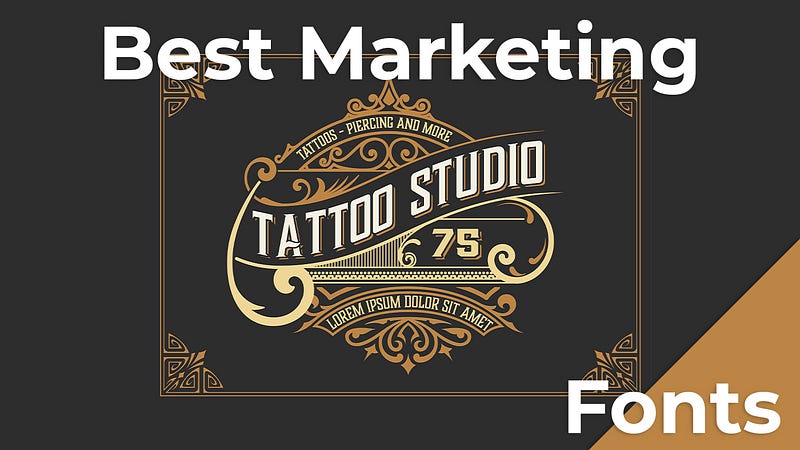
There is no one “best” font for marketing, as the best font for a given situation will vary depending on the specific message that you’re trying to communicate. Some fonts are more commonly used in marketing materials than others, and certain fonts can be more effective at conveying certain messages. Here are some general rules of thumb that can help you choose the best font for your marketing materials.
When it comes to fonts, readability is key. You want your audience to be able to read your text easily, without having to strain their eyes. So, avoid fonts that are too fancy or ornate. They may look pretty, but they can be difficult to read.
A good rule of thumb is to stick to simple fonts like Arial, Helvetica, or Times New Roman. These fonts are easy to read and they come pre-installed on most computers, so you don’t have to worry about your audience not being able to view them.
If you are looking for a more unique font, try something that is still easy to read, like Verdana or Georgia. These fonts have a modern feel to them and they are still easy to read.
When it comes to marketing, it is important to consider your audience. If you are targeting a younger audience, you may want to use a more modern font, like the ones mentioned above. If you are targeting an older audience, you may want to stick to more traditional fonts.
Ultimately, the best font for marketing is the one that is the easiest for your audience to read. So, take the time to test out different fonts and see which one works best for your specific needs.
How To Choose The Best Font For Your Marketing Materials
There is no one best font for marketing, as the choice of typeface depends on the specific goals and target audience of your campaign. However, there are a few key things to keep in mind when selecting a font for your marketing materials:
1. Make sure the font is legible.
Your target audience should be able to read your marketing materials without any difficulty, so make sure to choose a font that is easy to read. Sans-serif fonts are generally considered to be the most legible, while serif fonts are less legible in small doses but can be more effective when used in large blocks of text.
2. Consider the tone of your campaign.
The font you choose should reflect the tone of your marketing campaign. For example, a playful, fun campaign might benefit from a more whimsical font, while a more professional or serious campaign might be better suited to a more traditional font.
3. Match the font to your branding.
Your branding should be reflected in your marketing materials, so make sure to choose a font that is consistent with your company’s branding. This will help to create a unified look and feel for your marketing materials.
4. Keep it simple.
In general, it’s best to stick to a few simple fonts for your marketing materials. Too many different fonts can be confusing and can make your materials look cluttered.
With these tips in mind, here are a few of our favorite fonts for marketing:
1. Helvetica: A classic sans-serif font that is both legible and versatile.
2. Georgia: A serif font that is both easy to read and has a traditional look and feel.
3. Bodoni: A stylish serif font that is perfect for high-end brands.
4. Arial: A simple, legible sans-serif font that is perfect for everyday use.
5. Comic Sans: A playful font that is perfect for lighthearted and fun marketing campaigns.
What Are The Most Effective Fonts For Marketing Emails
The best font for marketing emails will vary depending on the specific goals and target audience of the email campaign. However, some general tips on selecting fonts for marketing emails can be helpful for designers and email marketers alike.
When selecting a font for marketing emails, it is important to consider both the readability of the font and its ability to convey the tone and message of the campaign. While some fonts may be more legible, others may be more visually appealing or convey a certain feeling or mood.
Some of the most popular fonts for marketing emails include Arial, Verdana, Tahoma, Trebuchet MS, and Georgia. These fonts are all relatively easy to read and are widely available on both Windows and Mac computers. Additionally, they are all sans-serif fonts, which are often considered to be more legible than serif fonts.
If you are looking for a more creative or visually appealing font, there are a number of options available. Some popular fonts for creative marketing emails include Comic Sans MS, Brush Script MT, and Edwardian Script ITC. These fonts can add a bit of personality to your marketing emails and can help to convey the tone and message of your campaign. However, it is important to use them sparingly, as too much text in a non-standard font can be difficult to read.